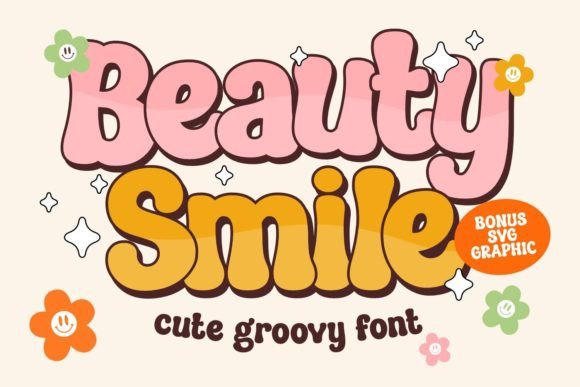
Introducing Beauty Smile Font, the ultimate choice for those seeking a touch of retro charm and playfulness in their designs. Created by the talented Keithzo from 7NTypes, this font is a true gem in the world of typography.
With its fun and cute groovy style, Beauty Smile Font adds a vibrant and energetic touch to any project. Whether you're designing book covers, posters, packaging, merchandise, or even a captivating logotype, this font is the perfect companion to bring your vision to life.
Imagine the possibilities with Beauty Smile Font! Let your creativity soar as you infuse your designs with a playful and carefree spirit. Capture the attention of your audience and leave them smiling with delight.
But don't let its playful nature fool you – Beauty Smile Font is also incredibly versatile. Its bold and captivating presence ensures that your message will never go unnoticed. Stand out from the crowd and make a lasting impression with this one-of-a-kind font.
Embrace the retro vibes and tap into the nostalgia of bold typography with Beauty Smile Font. Its unique character will transport your audience to a time of carefree fun and create a connection that resonates deeply.
Don't settle for ordinary fonts when you can have the extraordinary. Make a statement, express your personality, and elevate your designs to new heights with Beauty Smile Font. Get ready to turn heads and spark joy with this captivating font.
Experience the magic of Beauty Smile Font – the best font for framed quotes and beyond. Begin your creative journey now and let your imagination run wild.